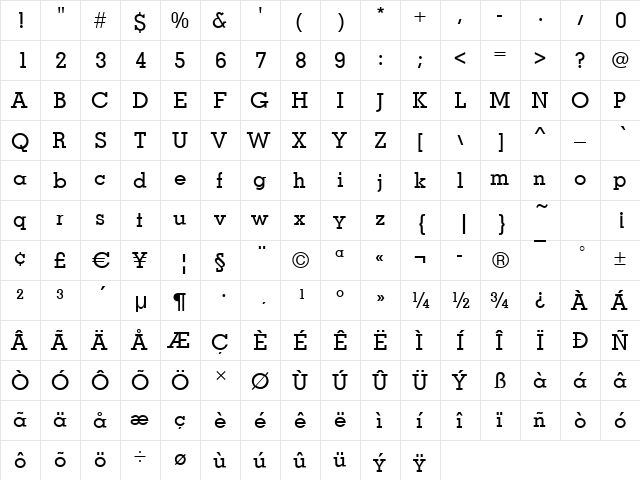
Missouri-Light Regular
Design Context for Missouri-Light Typeface
Missouri-Light takes a measured approach to typography — its balanced proportions and neutral character make it a reliable workhorse for both digital and print work. Its slender proportions lend an understated elegance to any composition.
Pro Tip: Use Missouri-Light in both headline and body roles to test its range before committing to a single application.